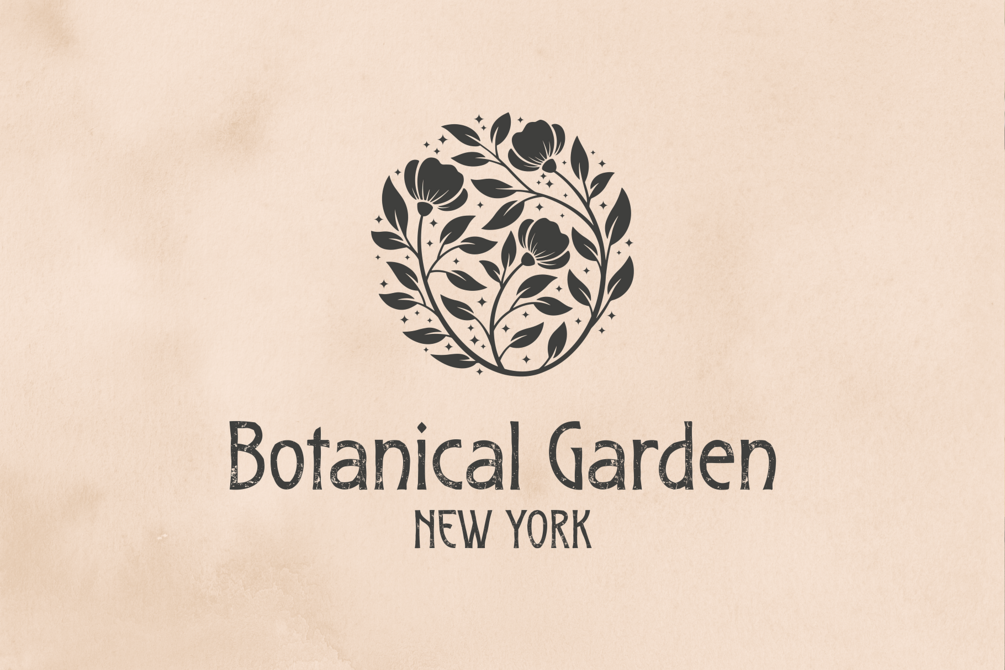
Sovereign Heritage - Vintage Typeface
Sovereign Heritage is a vintage font that exudes class and timelessness. This decorative typeface is perfect for formal occasions and projects that require a touch of elegance. With its intricate details and ornate curves, it brings a sense of heritage and tradition to any design.
The regular version is perfect for clean and crisp designs, while the rough version adds a touch of texture and character. Overall, Sovereign Heritage is the ideal choice for anyone looking to add a vintage touch to their designs.